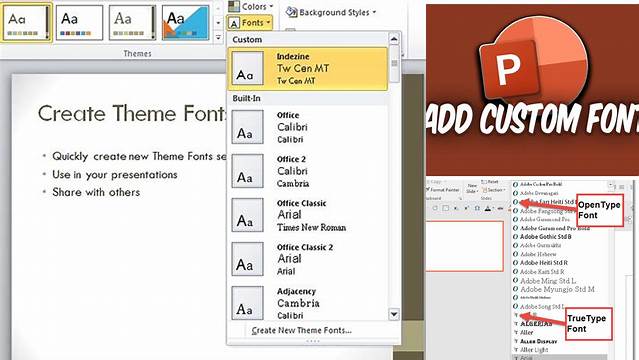
PowerPoint Font Guide: Custom Fonts Made Easy
How to Use Custom Fonts in PowerPoint: Adding Personality to Your Presentations
Hey guys! Ever feel like your PowerPoint presentations are a little… bland? Like, the default fonts are just screaming, "I'm boring!" Well, you're not alone. One of the easiest ways to jazz up your slides and make them pop is by using custom fonts. This guide will walk you through everything you need to know about how to use custom fonts in PowerPoint, from finding the perfect typeface to installing and using them effectively. Let's face it, using the same old Arial or Calibri can get old fast. Custom fonts allow you to inject personality, style, and brand consistency into your presentations, making them more memorable and engaging for your audience. Imagine your slides reflecting your brand's unique identity, or conveying a specific mood or tone with the simple choice of a font. It's a powerful tool, and it's easier than you think to implement. We'll cover everything from where to find amazing free and paid fonts to troubleshooting common issues like font embedding. So, whether you're a seasoned presenter or just starting out, get ready to take your PowerPoint skills to the next level. Let's ditch the font boredom and dive into the world of custom typography! Choosing the right font is crucial. It should complement your content, reflect your brand, and be easy to read. Consider the overall tone of your presentation – is it formal, casual, playful, or serious? The font should match that tone. Think about your audience too; a font that's easy to read on a screen might not be ideal for a large projection. Using custom fonts in PowerPoint gives you a competitive edge, differentiating your presentations from the sea of generic slides.
Finding the Perfect Fonts: Where to Source Your Typefaces
Using Custom Fonts in PowerPoint: Integrating Fonts into Your Slides
Alright, let's get to the good stuff: actually using your custom fonts in PowerPoint! Once your fonts are installed, open PowerPoint and create a new presentation or open an existing one. You'll find your new fonts in the font dropdown menu, just like the standard fonts. Select the text box you want to change, and choose your desired font from the dropdown. You can apply custom fonts to headings, body text, and any other text elements on your slides. Experiment with different font sizes, weights (bold, italic), and colors to find the perfect look for each element. A good tip is to establish a consistent font usage throughout your presentation. Choose a font pairing (one for headings and one for body text) and stick with it to create a cohesive look. For a quick and easy way to apply custom fonts, use PowerPoint's theme options. You can customize the theme fonts to automatically apply your chosen fonts to headings and body text throughout your entire presentation. To do this, go to the "Design" tab, click "Fonts," and select "Customize Fonts." Then, choose your desired fonts for headings and body text and save your changes. Another important thing when you're figuring out how to use custom fonts in PowerPoint is that to ensure the fonts are displayed correctly, regardless of where the presentation is viewed.
Troubleshooting Font Issues in PowerPoint: Common Problems and Solutions
Even with the best planning, things can go wrong. Let's troubleshoot some common font issues you might encounter. If your custom fonts don't appear in PowerPoint, the first thing to do is double-check that they're installed correctly. Make sure they're in the correct font folder, and try restarting PowerPoint and your computer. If the font still isn't showing up, it could be a compatibility issue. Some older or less common font formats might not be fully supported by PowerPoint. Try converting the font to a more compatible format like .OTF. If your fonts are displaying incorrectly, check if you've embedded them correctly. Go to "File" > "Options" > "Save" and verify that the "Embed fonts in the file" option is checked. Missing characters or glyphs can be another issue. This could be due to a missing font file or a compatibility problem. Ensure that you have the complete font file and that it's installed correctly. Corrupted font files can also cause problems. If you suspect this, try reinstalling the font. Font licensing issues can sometimes cause problems, too. Make sure you have the proper license to use and embed the font. If you're still having trouble, try updating PowerPoint to the latest version. Updates often include bug fixes and compatibility improvements. The key to figuring out how to use custom fonts in PowerPoint is to try these troubleshooting tips, it will help you identify and resolve any issues you may face.
Custom Fonts and Branding: Maintaining Brand Consistency in Presentations
Guys, custom fonts are more than just aesthetics; they're a powerful tool for reinforcing your brand identity. The fonts you choose can communicate your brand's personality, values, and style. When selecting fonts for your PowerPoint presentations, consider your brand guidelines. Do you have a specific font family or style that you use across all your marketing materials? Use these fonts in your presentations to maintain consistency. If you don't have brand guidelines, now is the time to create them. Choose a few fonts that reflect your brand's personality. Stick to these fonts across all your presentations, and even your other materials, such as website, social media, and brochures. This creates a cohesive and recognizable brand presence. Incorporate your brand colors along with your fonts to further enhance brand recognition. Consistency is key to building brand awareness. When people see your presentations, they should instantly recognize your brand. By using consistent fonts and other design elements, you'll create a memorable and impactful presentation. You will master how to use custom fonts in PowerPoint and learn how to choose and implement fonts that align with your brand's personality and messaging.
Font Combinations: Pairing Fonts for Visual Appeal
Alright, let's talk about making your presentations visually stunning with the magic of font pairings! Choosing the right font combinations is key to creating a harmonious and engaging visual experience. The goal is to create contrast and visual interest without overwhelming your audience. Start by choosing a primary font for headings and a secondary font for body text. Think of the heading font as the star and the body font as the supporting actor. Ensure your font combination is readable. Consider the different font weights and styles. Avoid using fonts that are too similar, as this can make your presentation look boring and monotonous. Explore different font styles to find what works for your presentations, a good idea is to create a mood board before working on the presentation. Don't be afraid to experiment! Try different combinations until you find one that you love. You can use online resources to help you. Font pairing websites offer suggestions for visually pleasing font combinations. Use those sites as a starting point, but don't be afraid to experiment and tweak the suggestions to suit your presentation's needs. Learning how to use custom fonts in PowerPoint and experimenting with different font combinations will greatly enhance your presentation skills.
Custom Fonts and PowerPoint Best Practices: A Recap
Let's recap the best practices! Choose fonts that match your brand's identity. Prioritize readability, and make sure your fonts are legible. Use the correct font sizes for headings and body text. Always embed your fonts to ensure that they appear correctly on different computers. Maintain design consistency across all your presentations. Follow these best practices when you're learning how to use custom fonts in PowerPoint, and your presentations will be professional and impactful.